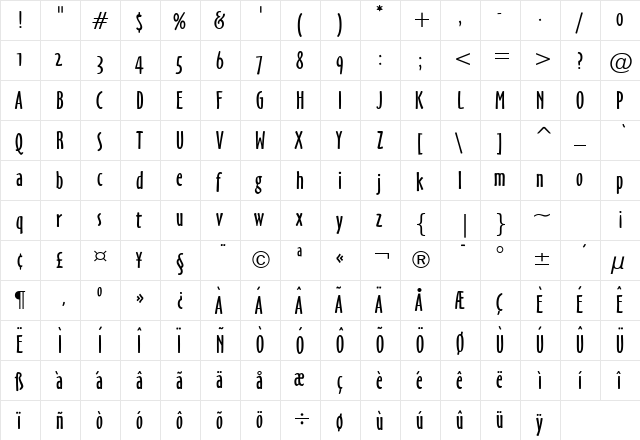
Hobby Extended Normal
Design Context for Hobby Extended Typeface
Hobby Extended takes a measured approach to typography — its balanced proportions and neutral character make it a reliable workhorse for both digital and print work.
Pro Tip: Use Hobby Extended in both headline and body roles to test its range before committing to a single application.